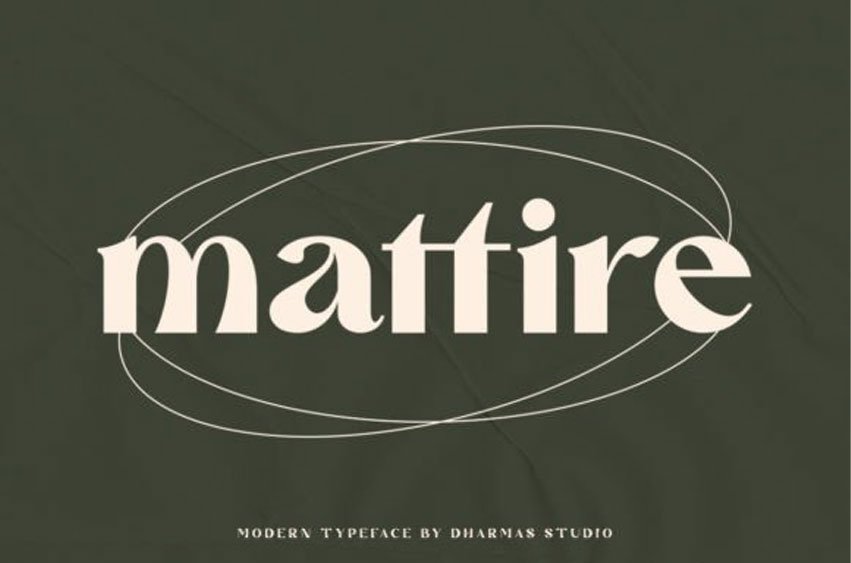
Mattire Font is a stylish font that is both classic and minimal.
A bold, high contrast font that is perfect for header magazine, web, feminine logo marks & editorial design. It’s a mix between a classic serif and a futuristic sans serif.